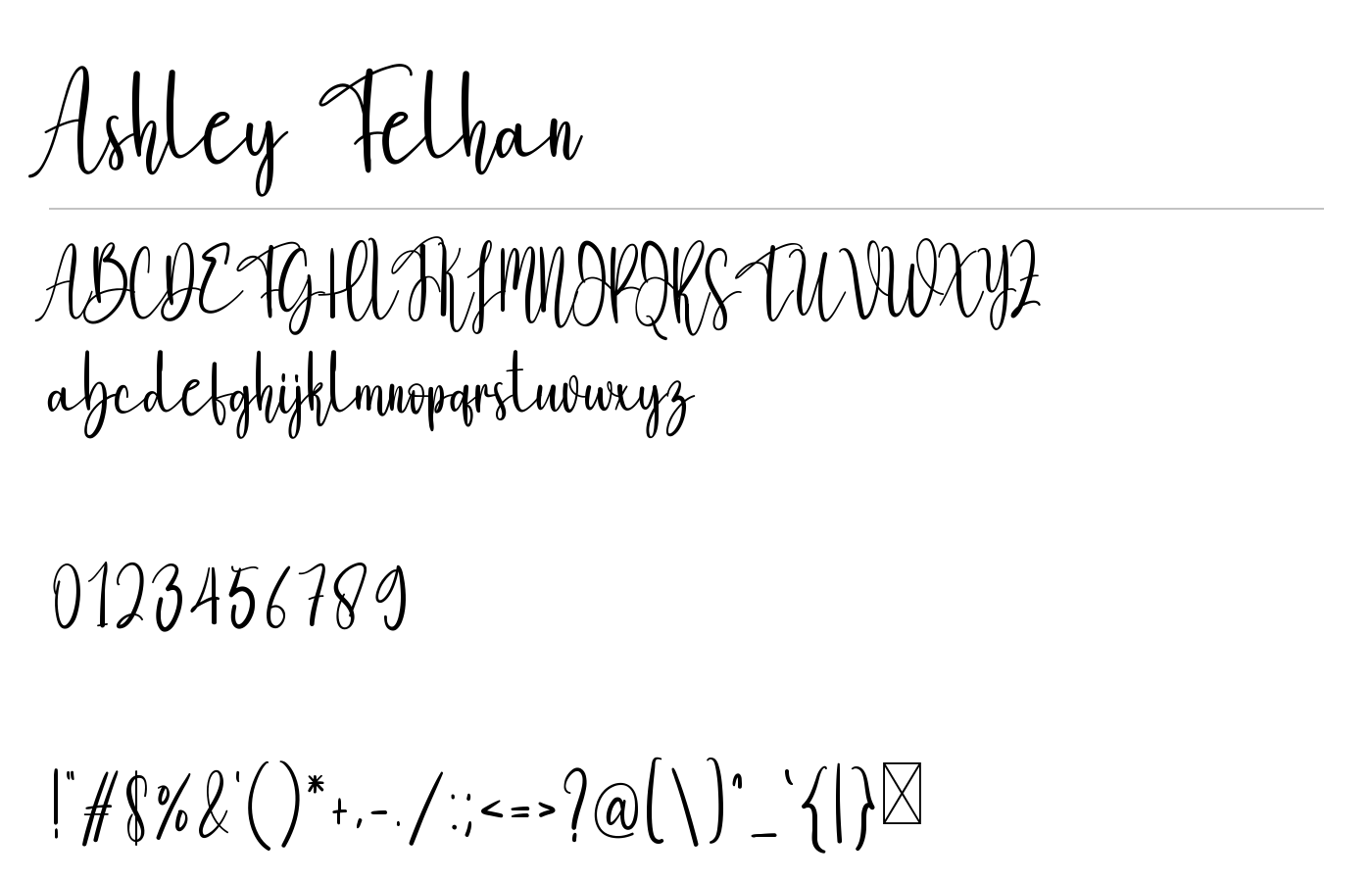
Ashley Felhan is a stylish handwritten script font characterized by its tall, slender letterforms and playful, flowing strokes. Its light weight and slightly irregular lines give it an approachable, personal feel, making it perfect for creative projects like invitations, logos, and branding that seek a warm, elegant touch. This font shines in designs that want to convey friendliness and charm while maintaining a modern, artistic flair.
Ashley Felhan Font
About Ashley Felhan Font